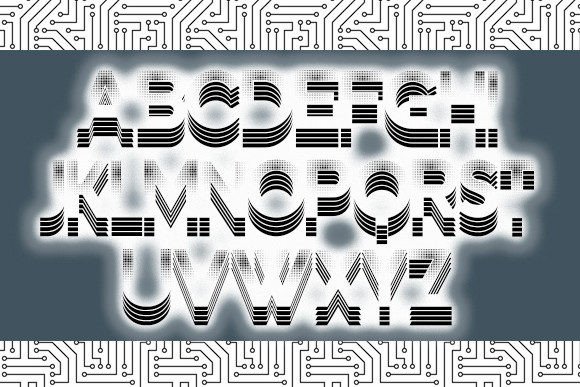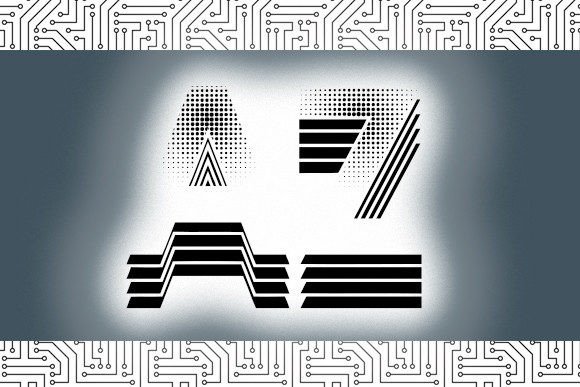
Unlocking the Future of Design with the Cyber Expert Font
Have you ever been scrolling through social media and seen a postcard or a shirt that just stopped you in your tracks? For me, it was a design that used a futuristic, 3D font that seemed to leap off the page. I was immediately drawn in and wondered, ‘What font is that?’ That’s when I discovered the Cyber Expert Font, a stylish and elegant typeface that’s perfect for making a statement.
The Cyber Expert Font is a 3D decorative typeface with beautiful gradients that add an extra layer of depth and visual interest. Whether you’re designing a shirt, a postcard, or a brochure, this font is sure to turn heads. As a designer, you know how valuable it is to have a versatile font that can elevate your work and make it stand out from the crowd. That’s exactly what the Cyber Expert Font offers – a unique and eye-catching way to express yourself and showcase your creativity.
Cyber Expert Font Key Features
- Font Family: A futuristic sans-serif font designed to evoke a sense of technology and innovation.
- Unique Characteristics: Features a unique blend of geometric and organic shapes, creating a distinctive digital look.
- Kerning and Ligatures: Includes advanced kerning and ligature pairs for improved readability and aesthetic appeal.
Cyber Expert Font Review
Overall, I’m quite impressed with the Cyber Expert Font, but as with any font, it has its strengths and weaknesses. Let’s dive into what I liked and disliked.
- Modern aesthetic: The font’s futuristic design gives it a sleek, high-tech feel that’s perfect for tech-related projects.
- High contrast: The bold lines and sharp edges create a clear, easy-to-read experience, even at smaller font sizes.
- Customization options: The font offers a range of weights and styles, allowing for a high degree of customization to suit different design needs.
- Limited legibility at extreme sizes: While the font is clear at standard sizes, it can become difficult to read at very small or very large sizes.
- Lack of serif options: For projects that require a more traditional, serif font, Cyber Expert may not be the best choice.
- May not be suitable for long blocks of text: The font’s bold design can make it difficult to read large blocks of text, making it more suitable for headings and titles.
Overall, I’d say the Cyber Expert Font is a solid choice for projects that require a modern, high-tech aesthetic. While it has some limitations, its customization options and clear design make it a great addition to any designer’s toolkit.
The Cyber Expert Font is ideal for creating futuristic and high-tech designs. Some common use cases include:
- Creating futuristic logos and branding materials.
- Designing sci-fi themed posters and graphics.
- Adding a touch of futurism to business presentations and reports.